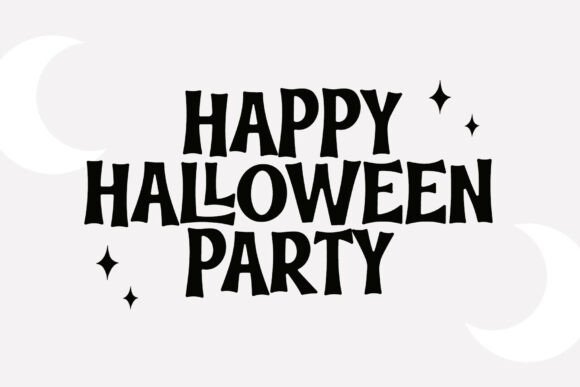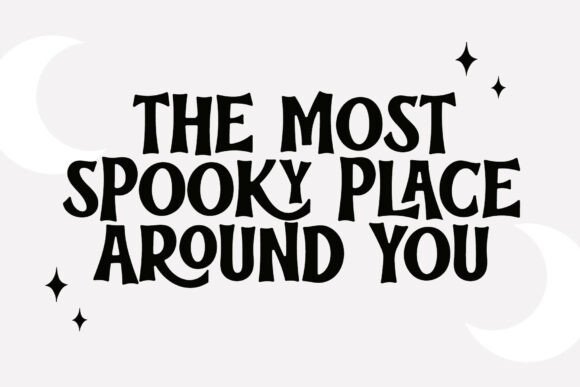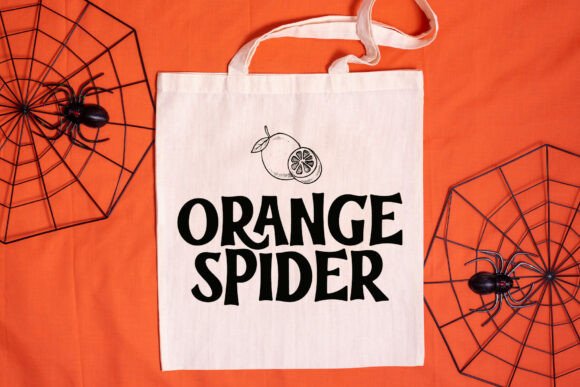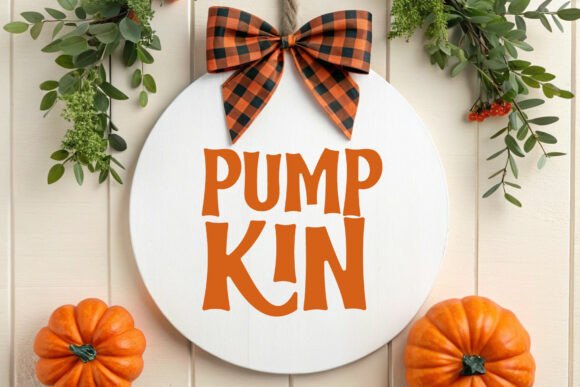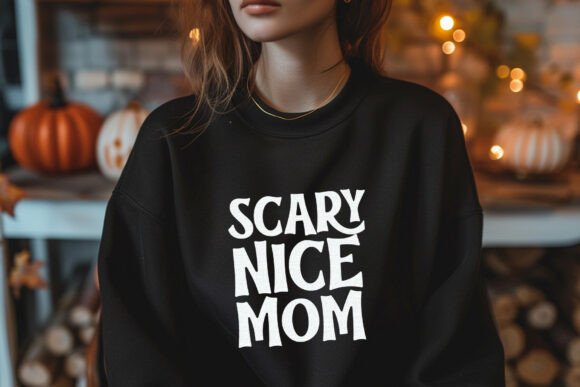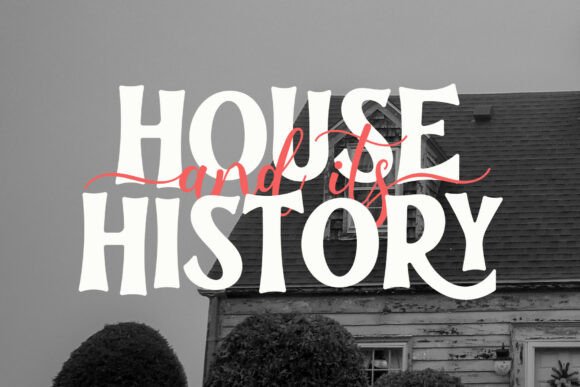
Discover the Magic of Kindly Witch Font
Have you ever been rummaging through your design files, desperate for the perfect font to capture the essence of a spooky Halloween project? You know, that moment when the creative wheels start turning, and you can almost smell the pumpkin spice in the air? That’s exactly when you need a font that’s as playful as it is eerie.
Enter Kindly Witch Font, an all-caps display font that’s sure to cast a spell on your designs. With its bouncy style and thoughtful ligatures, this font is the perfect companion for any project that needs a dash of festive flair. Whether you’re designing t-shirts, crafting spooky decorations, or creating stickers that will make your friends scream with delight, Kindly Witch Font has got you covered.
Kindly Witch Font Key Features
- Font Family: Kindly Witch is a unique, hand-drawn font designed to evoke a whimsical and magical feel. It includes a wide range of characters, including uppercase and lowercase letters, numbers, and punctuation.
- Character Set: The Kindly Witch font includes a comprehensive character set, covering Latin, Cyrillic, and Greek alphabets, as well as various symbols and glyphs.
- Unique Characteristics: The Kindly Witch font features a distinctive, hand-drawn style with intricate details and flourishes, making it perfect for designs that require a touch of magic and whimsy.
Designer Review: Kindly Witch Font
When I first laid eyes on the Kindly Witch Font, I couldn’t help but be drawn in by its whimsical charm ✨. The font’s unique blend of modern and mystical elements makes it perfect for any project that needs a touch of magic. The font’s versatility is impressive, and I can see it working well in a variety of contexts, from children’s book illustrations to mystical-themed websites.
One of the standout features of the Kindly Witch Font is its excellent legibility ✨. The font’s clear and well-spaced letters make it easy to read, even at smaller font sizes. Additionally, the font’s OpenType features allow for a range of creative possibilities, from swashes to ligatures.
However, I do have a few criticisms ⚠️. The font’s irregularities can sometimes make it difficult to work with, particularly when it comes to lining up text or creating precise designs. Additionally, the font’s magical theme may not be to everyone’s taste.
- Unique blend of modern and mystical elements
- Excellent legibility
- OpenType features for creative possibilities
- Whimsical charm
Overall, I would give the Kindly Witch Font a solid 4 out of 5 stars ⭐️. While it may have some limitations, its unique charm and versatility make it a great addition to any designer’s toolkit.
The Kindly Witch Font is perfect for creating whimsical and magical designs. Use it for:
1. Children’s book illustrations.
2. Halloween-themed decorations.
3. Fantasy-themed graphic designs.
Remember to experiment with different font sizes, colors, and styles to get the most out of the Kindly Witch Font.
Alternatives to Kindly Witch Font
Great Vibes is a beautiful, elegant script font perfect for wedding invitations, quotes, and other romantic designs. It’s a great choice for designers who want a similar feel to Kindly Witch Font without the fantasy elements.
Comparison to Kindly Witch Font: Great Vibes is more refined and less whimsical than Kindly Witch Font, making it a better choice for formal or elegant designs.
Amarante
Amarante is a luxurious, cursive font with a touch of elegance and sophistication. It’s ideal for designers who want to create high-end designs that exude luxury and refinement.
Comparison to Kindly Witch Font: Amarante is more formal and less playful than Kindly Witch Font, making it a better choice for designs that require a sense of sophistication and elegance.